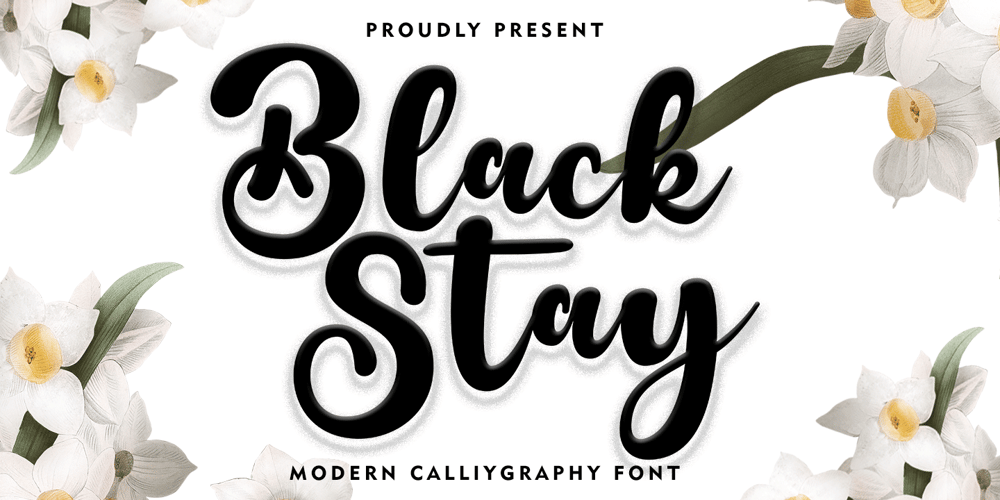
Black Stay Script Font Family was designed by Zaki Muhammad and published by madjack.font. Black Stay Script contains 1 styles and family package options. Black Stay Script is a signature collection font with natural movement creating an elegant, classy and beautiful look for your latest project.Black Stay Script is perfect for branding projects, logos, wedding designs, social media posts, advertising, product packaging, product design, labels, photography, watermarks, invitations, stationery and any project that requires a handwritten feel.Full set of standard alphabet and punctuation Additional set of brushed lowercase letter endings Handwriting binder.Thank you so much for checking out my shop!